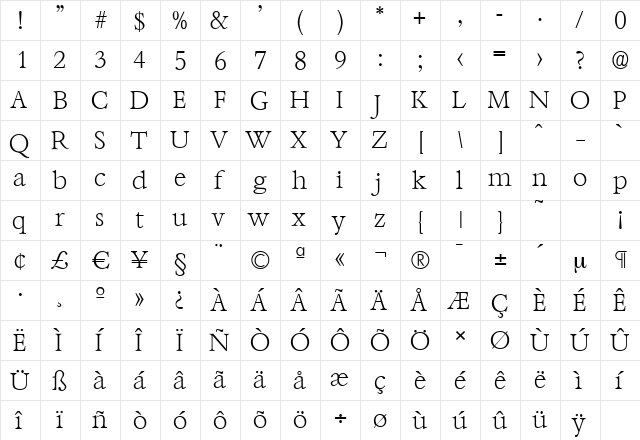
BernsteinSerial-Xlight Regular Font Preview
BernsteinSerial-Xlight Regular
Design Context for BernsteinSerial-Xlight Typeface
BernsteinSerial-Xlight takes a measured approach to typography — its balanced proportions and neutral character make it a reliable workhorse for both digital and print work. The delicate stroke weight brings airiness and refinement to layouts.